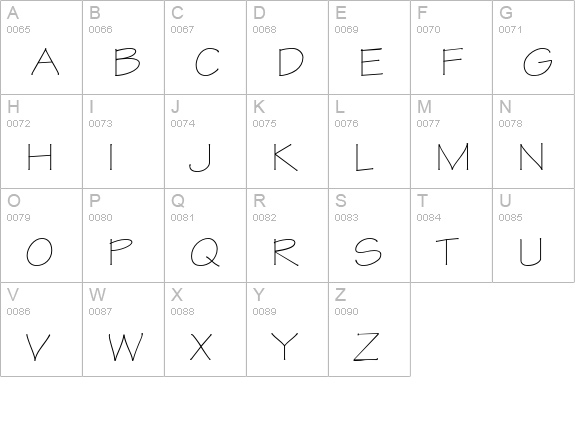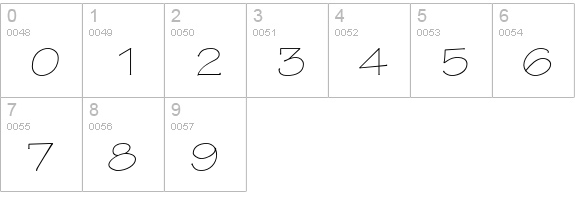
Tekton Pro Light Extended Font Details
Tekton Pro Light Extended is a refined, elegant, extended-width variant in the Tekton typeface family \xE2\x80\x94 well suited to elegant body text, refined sub-headings, and luxury branding.
Tekton Pro Light Extended is a modern and elegant font that exudes sophistication and grace. Its sleek and elongated letterforms add a touch of finesse to any design project. This versatile typeface is perfect for both headlines and body text, making it a go-to choice for designers and typographers alike. With its clean and crisp lines, Tekton Pro Light Extended brings a sense of clarity and professionalism to any layout. Its legibility ensures that your message is conveyed clearly and effectively. Whether used in print or digital media, this font is sure to captivate and engage your audience. One of the standout features of Tekton Pro Light Extended is its light weight, which gives it a delicate and airy quality. This makes it ideal for projects that require a subtle touch or a minimalist aesthetic. The extended letterforms add an extra level of elegance, making this font truly stand out from the crowd. And the best part? Tekton Pro Light Extended is available for free download at FontsMarket.com. This means that you can easily access and use this amazing font in your own projects without any cost. Whether you're a professional designer or a hobbyist, having access to high-quality fonts like Tekton Pro Light Extended can greatly enhance your creative output. So why wait? Head over to FontsMarket.com now and download Tekton Pro Light Extended for free. Start creating stunning designs that are sure to leave a lasting impression. Don't miss out on this incredible opportunity to add a touch of class to your next project.